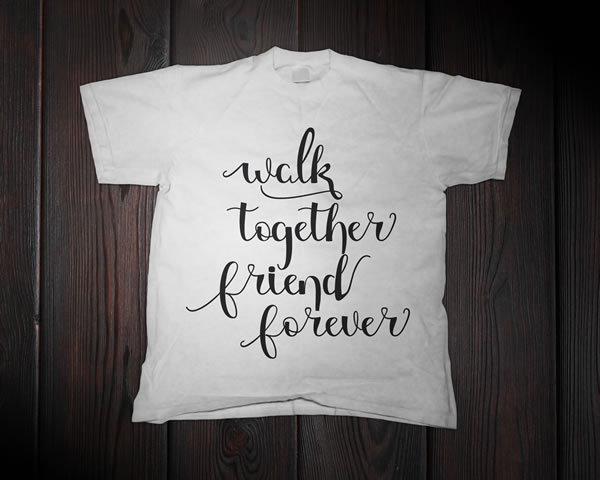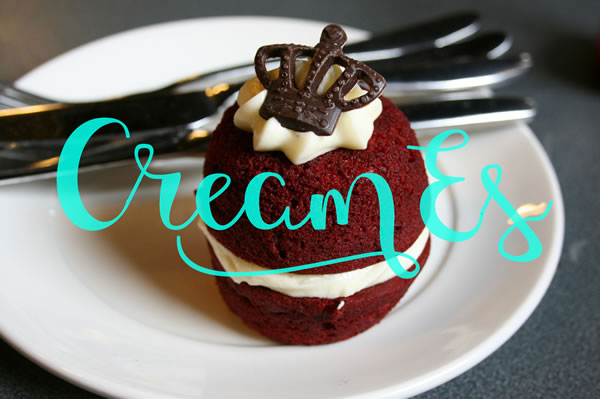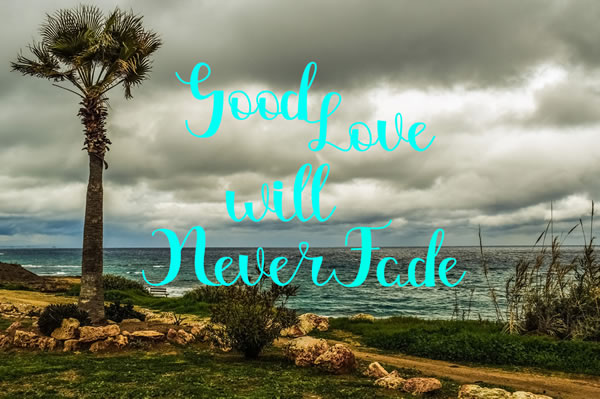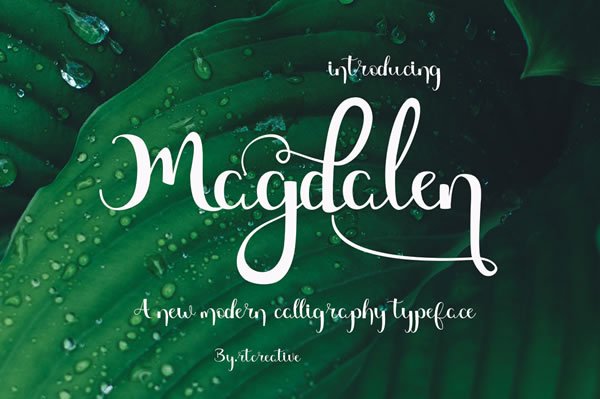
Introduction to Magdalen Font
Magdalen is a modern calligraphy font created by RT Creative 86.
Key Features of Magdalen Font
Why Choose Magdalen Font?
Magdalen Font offers exceptional quality and versatility, making it a valuable addition to your design toolkit. Whether you’re creating for personal projects or commercial use, Magdalen Font delivers professional results.